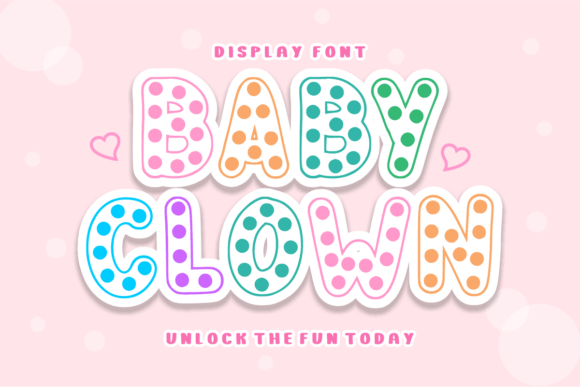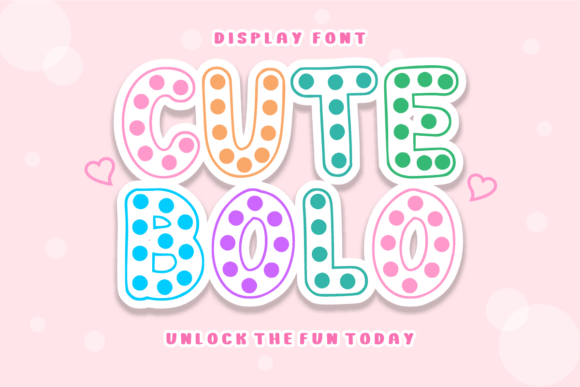
Unlocking the Fun with Simple Dots Font
Have you ever stared at a blank page, struggling to come up with the perfect design to capture the essence of your creative project? You want something that’s both playful and professional, yet still conveys the excitement and energy of your idea. That’s where the Simple Dots Font comes in – a vibrant and bubbly display font that’s sure to bring a smile to anyone’s face.
As a designer, you know how important it is to have high-quality design resources at your fingertips. That’s why we’re excited to introduce you to the Simple Dots Font, a free download that’s perfect for adding a touch of whimsy to your next project. With its transparent background and thick outlines, this font is a design dream come true – and it’s available for free!
Whether you’re working on a kids’ birthday invitation, a playful sticker pack, or a custom t-shirt design, the Simple Dots Font is the perfect choice. Its symmetrical dot details and bold, beautiful style make it highly legible and visually engaging – and it’s sure to add a pop of personality to any creative project.
Key Features of Simple Dots Font
- Simple yet effective design, making it ideal for use in logos, icons, and other graphic elements.
Honest Review: Simple Dots Font
I recently had the opportunity to work with the Simple Dots Font, and I must say, it’s a unique addition to any design project. This free download has a lot to offer, especially when it comes to creating visually appealing graphics with a transparent background.
- The Simple Dots Font is highly versatile and can be used in a variety of creative projects, from logo designs to infographic backgrounds.
- The high-quality design ensures that the font looks crisp and clear, even at larger sizes.
- The transparent background makes it easy to integrate the font with other design elements, giving you complete creative control.
- The Simple Dots Font may not be suitable for projects that require a lot of text, as the dots can become overwhelming and difficult to read.
Overall, I’m impressed with the Simple Dots Font. It’s a great design resource for anyone looking to add a touch of creativity to their projects. While it may have some limitations, its unique design and high-quality make it a valuable addition to any design library.
The Simple Dots Font is ideal for various creative projects, including:
- Infographics and data visualizations